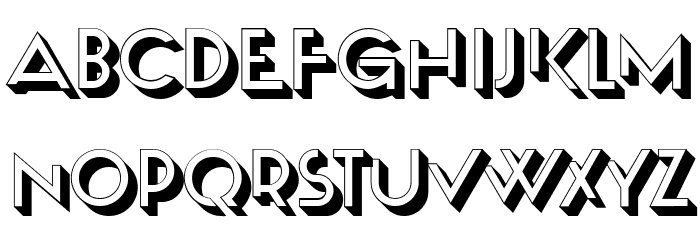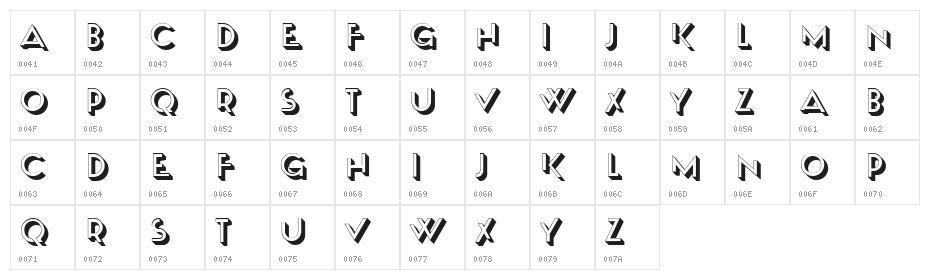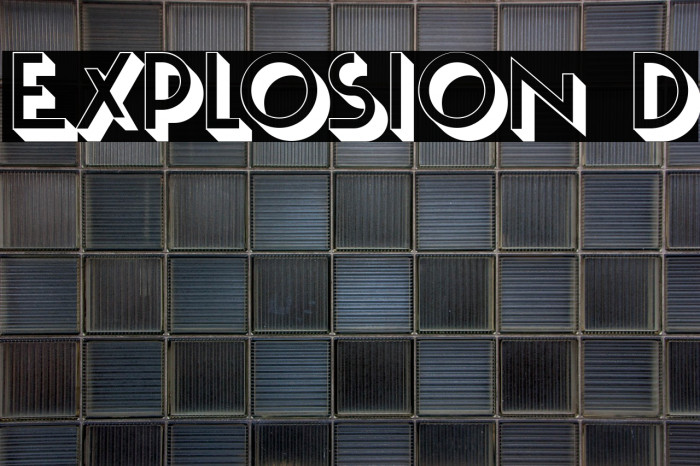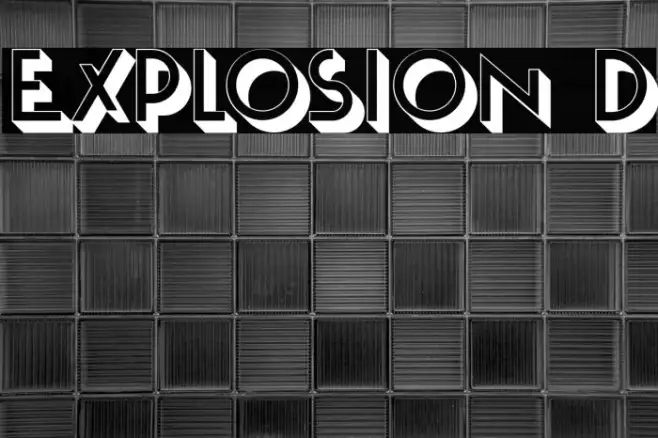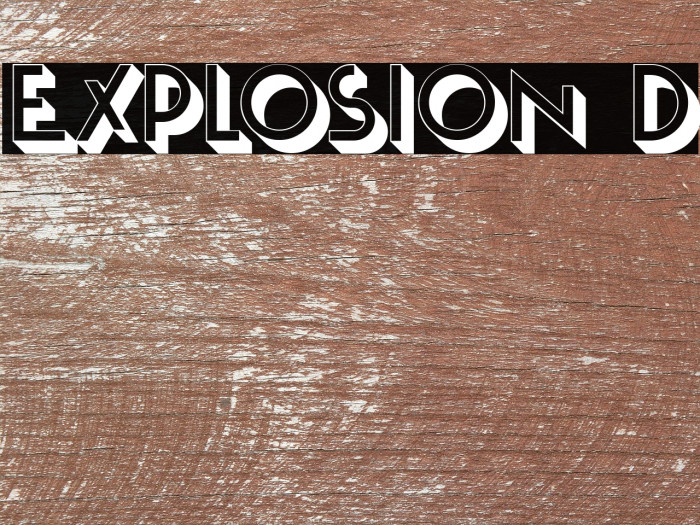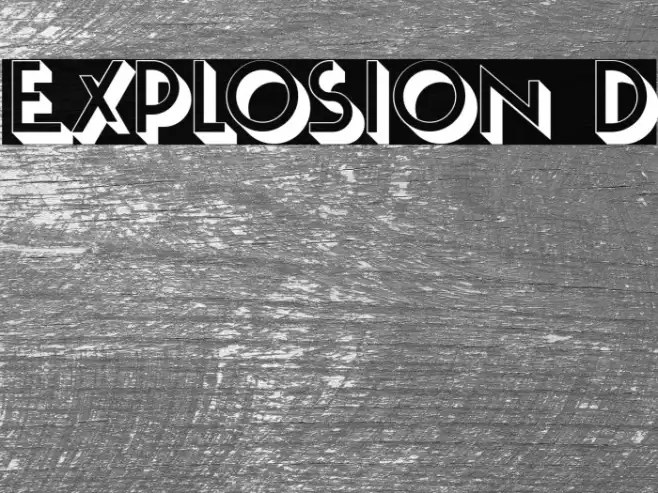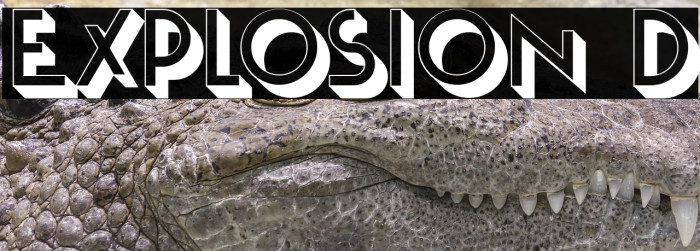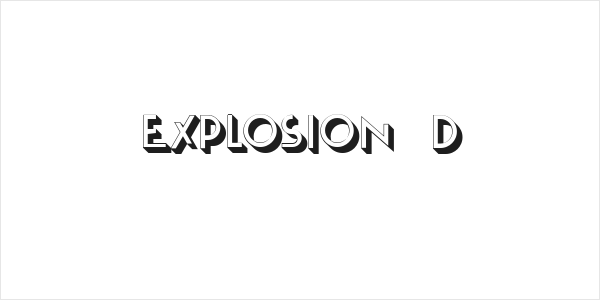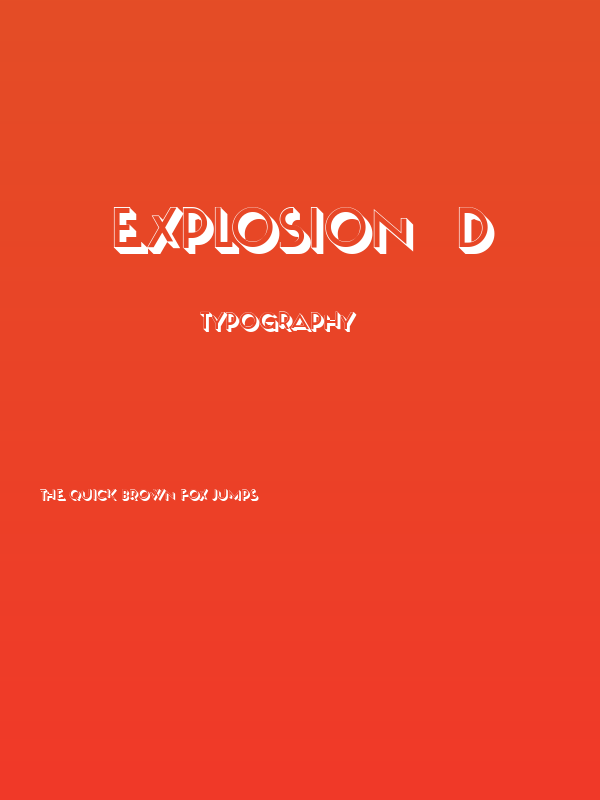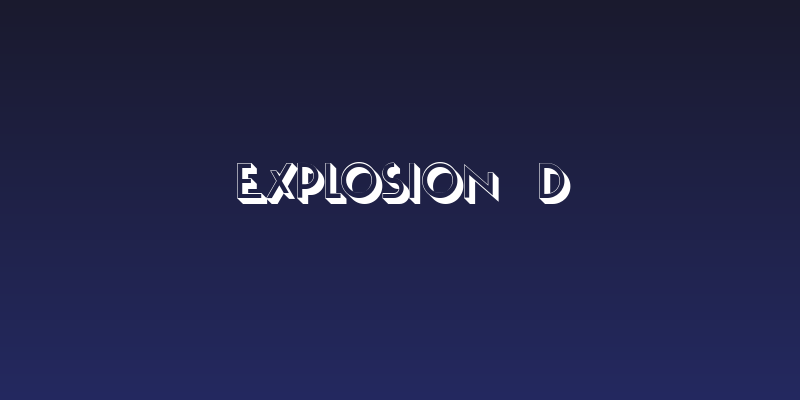
Explosion 3D Font
Explosion 3D Description
This font features a bold, three-dimensional design with a strong shadow effect that gives it a dynamic and impactful appearance. The letters are capitalized, with sharp angles and clean lines that create a sense of depth and movement. The 3D effect is achieved through a combination of solid black shadows and white highlights, making each character stand out prominently. This style is reminiscent of retro or comic book aesthetics, offering a playful yet assertive look. The font's geometric structure ensures readability while maintaining its decorative appeal.
| Overall Style | Retro, Decorative |
| Proposed Projects | Ideal for use in posters, logos, video game graphics, and any project requiring a bold, eye-catching typeface. |